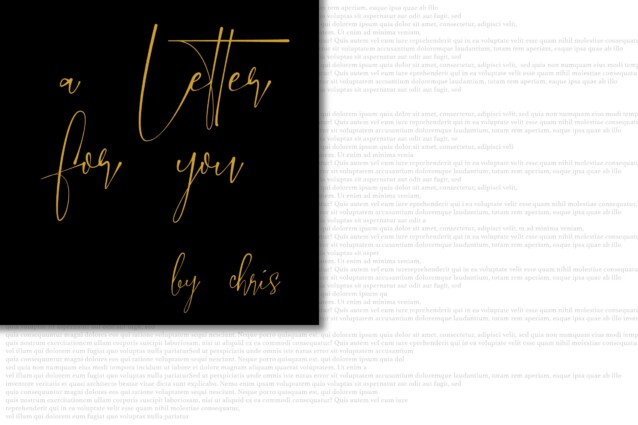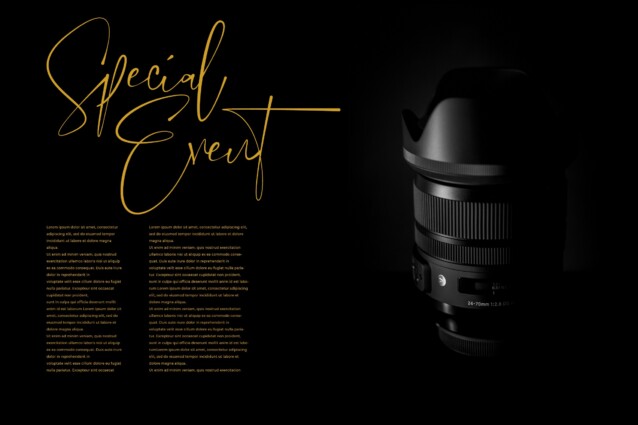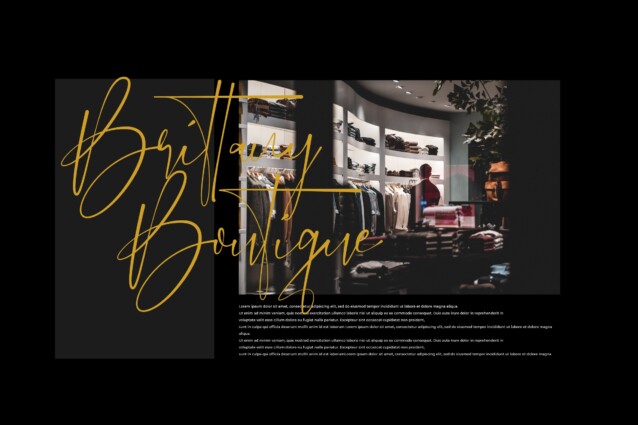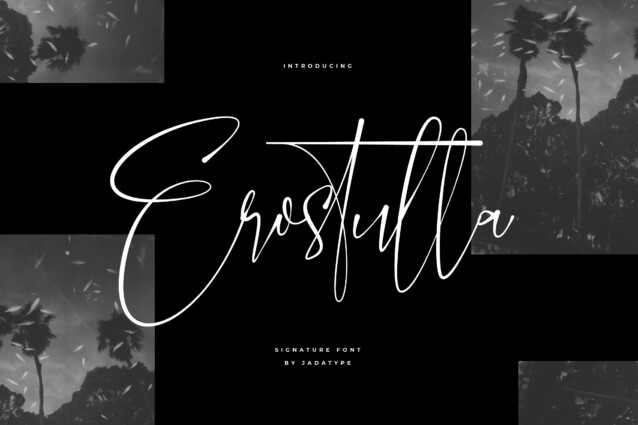
Erostulla Font is a charming handwritten font crafted & designed by jadatype. This script font has beautiful hand-drawn shapes and is exquisitely crafted. suitable for tshirt, branding, social media, and so on. contains standard English letters, numbers, punctuation, and several accents that support multilingualism.